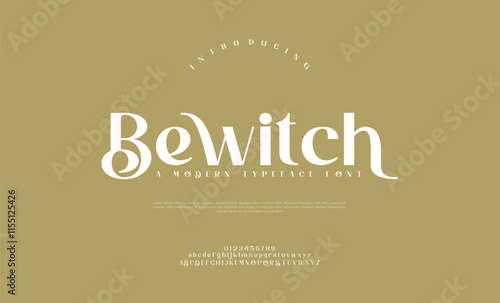
Elegant Font, aesthetic, Uppercase Lowercase and Number. wedding font, Classic Lettering Minimal Fashion Designs. Typography modern serif fonts regular decorative vintage concept. vector illustration